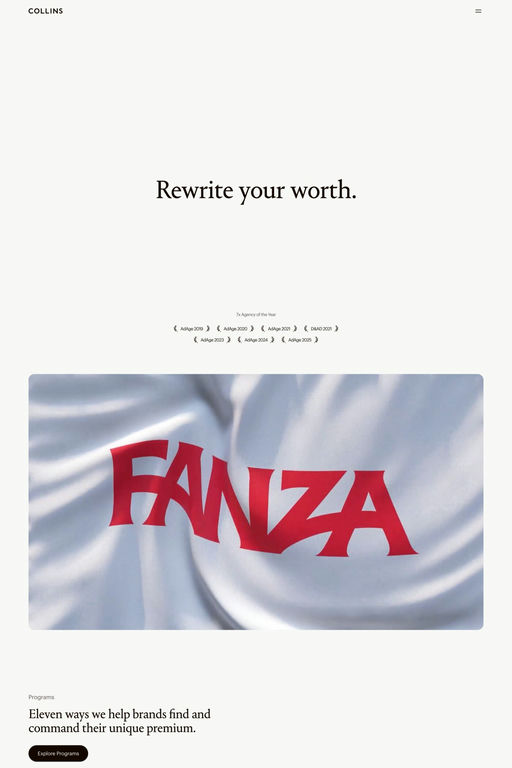
Portrait is a serif typeface from Commercial Type.
Portrait is Berton Hasebe’s sharply minimalist depiction of French Renaissance types. The marriage of classical proportions with triangular Latin serifs is an inspired combination, and a fresh way to see these nearly 500-year-old forms.